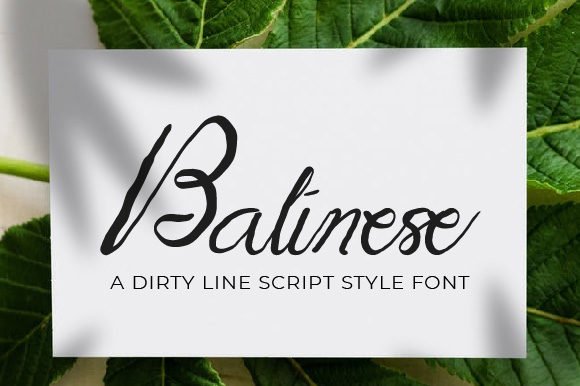
Where Style Meets Elegance: Unveiling the Balinese Font
Have you ever stumbled upon a design that left you breathless? For many creatives, that moment of inspiration can spark a whole new project or style direction. For me, it was when I saw a beautifully crafted wedding invitation featuring the stunning Balinese Font. The elegant script font added a touch of romance and sophistication that I couldn’t get enough of.
The Balinese Font is a highly sought-after script font that brings a sense of luxury and refinement to any design. Whether it’s a wedding invitation, a quote, or a business card, this font adds a level of sophistication that’s hard to match. As a designer, I can attest to the value of having a versatile font like the Balinese Font in your toolkit. It’s a game-changer for adding a touch of elegance to your designs.
Key Features of Balinese Font
- Font Style: The Balinese font is a unique and exotic script font, inspired by the traditional Balinese writing system used in Indonesia. It features a distinctive and intricate design with a mix of curved and straight lines.
- Unique Characteristics: The Balinese font features a unique blend of traditional and modern design elements, making it a standout choice for designers looking to add a touch of exotic flair to their work.
Review: Balinese Font
Overall, I found the Balinese Font to be a visually striking choice for any design project. ✨ The font’s intricate details and elegant lines evoke a sense of tropical sophistication, making it perfect for branding and packaging design related to the Bali or Southeast Asian culture.
Some of the standout features of the Balinese Font include:
- Its unique and exotic feel, making it stand out from more common fonts.
- The high level of detail in its letterforms, which adds to its sophistication and elegance.
- Its versatility, making it suitable for a wide range of design projects, from logos to posters.
However, I did encounter a few limitations:
- ⚠️ The font may be difficult to read in smaller sizes due to its intricate details.
- ⚠️ It may not be suitable for body text due to its ornate nature, which can make it difficult to read for extended periods.
Overall, I would recommend the Balinese Font for projects where a touch of elegance and sophistication is required. However, designers should be aware of its limitations and use it judiciously to avoid overwhelming the viewer.
Tips for Getting the Most Out of the Balinese Font
Here are a few tips for getting the most out of the Balinese font:
- Use the Balinese font in combination with other fonts to create a unique and eye-catching design.
- Consider using the Balinese font for titles or headings to add a touch of exotic flair.
The Balinese font is commonly used in:
- Designing invitations and stationery for tropical or cultural events.
- Creating logos and branding for companies with an exotic or international theme.
- Designing graphics and